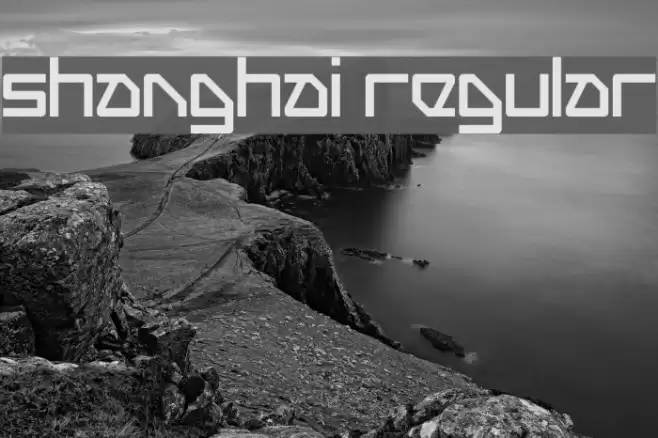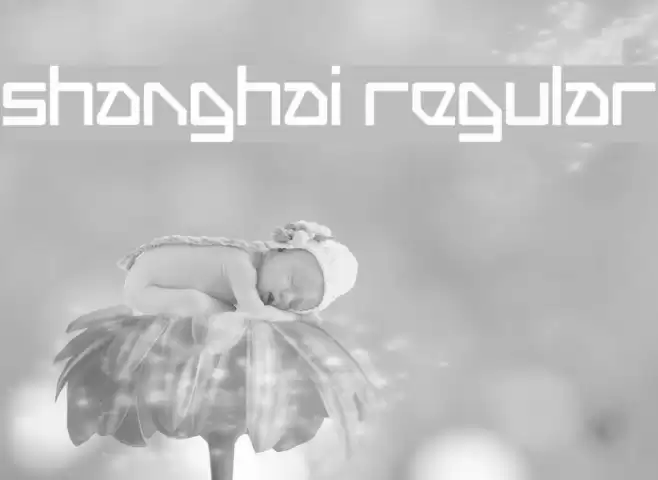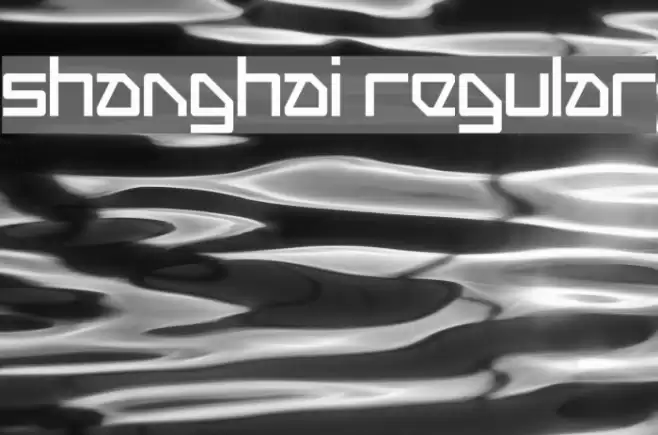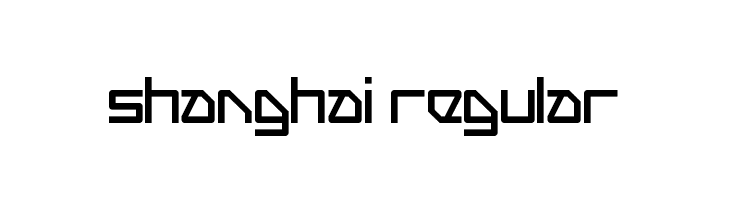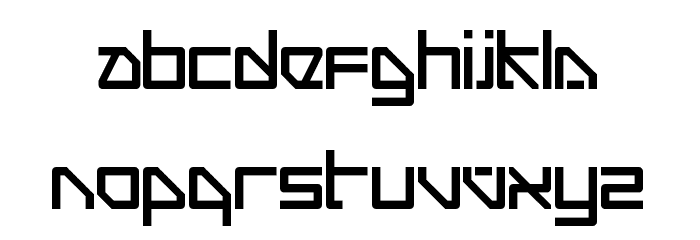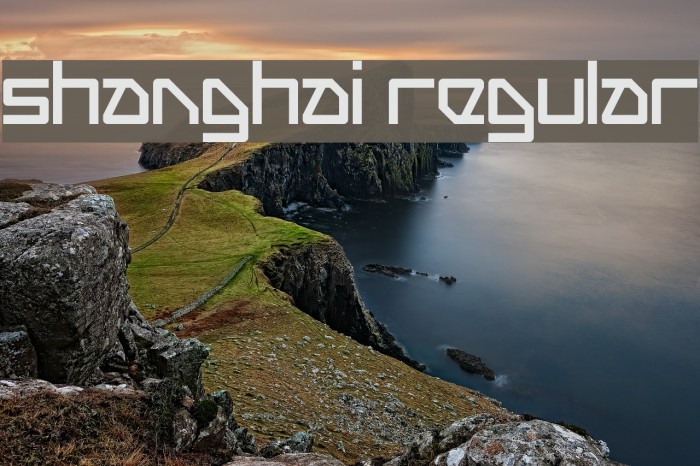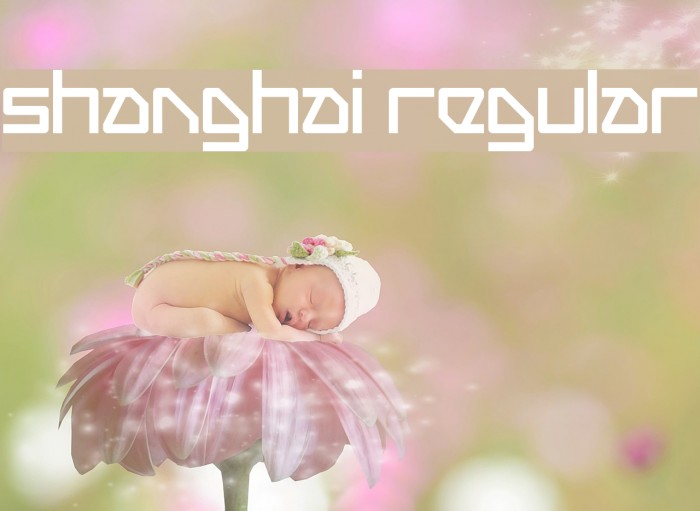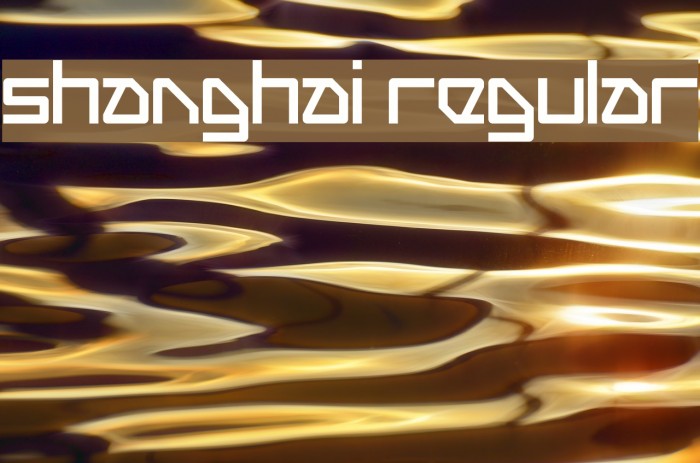
Shanghai Regular Font
Shanghai Regular Description
This font features a geometric and futuristic design with sharp angles and clean lines, creating a modern and tech-inspired appearance. The characters are uniformly structured with a consistent stroke width, giving it a sleek and cohesive look. The angular forms and minimalistic style make it suitable for digital and tech-related projects. Its unique design elements, such as the angular cuts and straight edges, contribute to its distinctive and contemporary aesthetic.
A geometric, futuristic font with sharp angles and clean lines from Decorative fonts.
- Proposed Projects: Ideal for tech branding, digital interfaces, video game design, and futuristic-themed posters.
- Use Case: Logos, Headlines, Digital interfaces